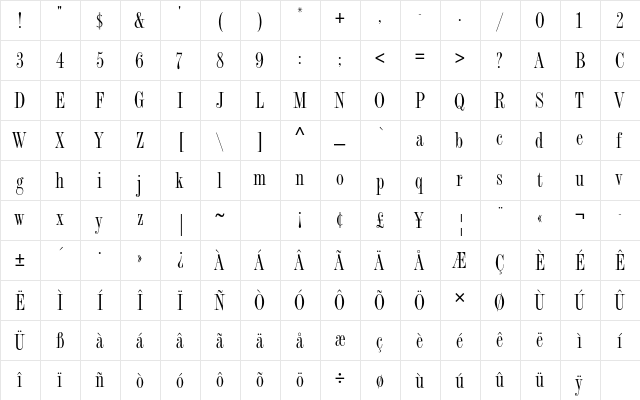
Fashion Compressed Std Regular Font Preview
Fashion Compressed Std Regular
Fashion Compressed Std Regular Font Details
| Designer | Alan Meeks |
Design Context for Fashion Compressed Std Typeface
Fashion Compressed Std is a composed and adaptable typeface that performs quietly and consistently across a wide range of design contexts.